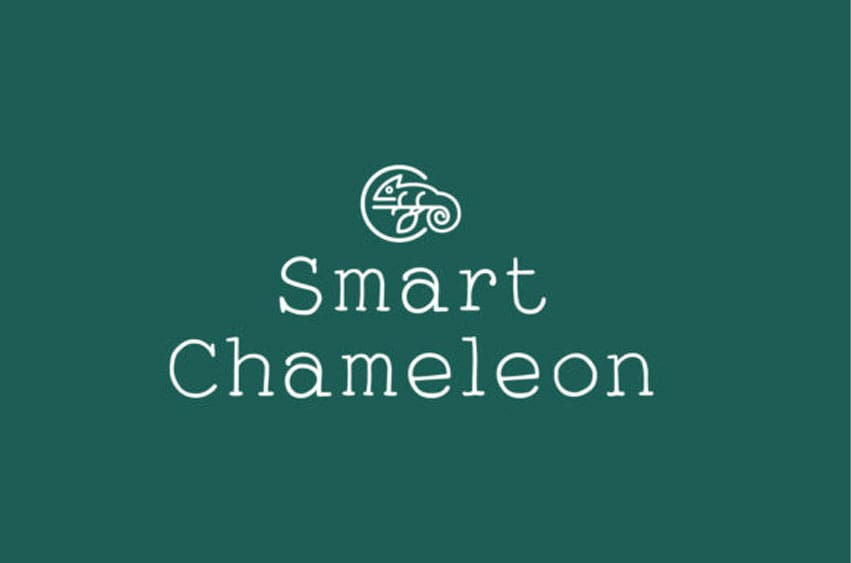
Smart Chameleon Font simplifies elegance into one truly outstanding serif font.
This font will appeal to a wide range of crafty ideas, from letterheads and titles to stationery.